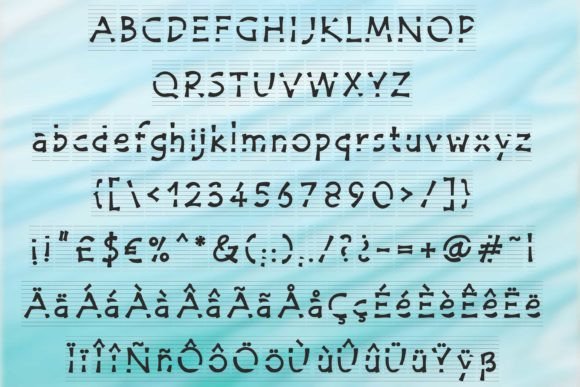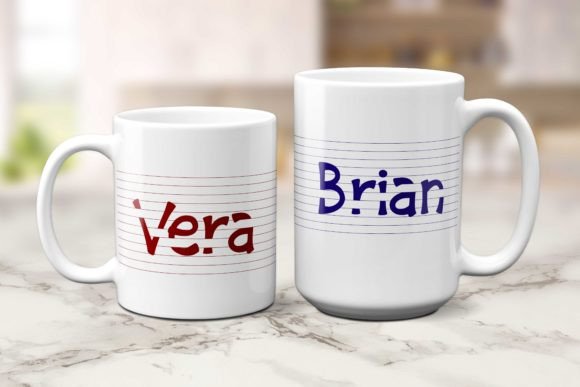
Introduction to Kalmer Font
Kalmer is a fun and distinct decorative font with these letters that seem to be going around, under, and over notebook paper.
Use it to create gorgeous stationary art, eye-catching social media posts, and cute greeting cards .
Key Features of Kalmer Font